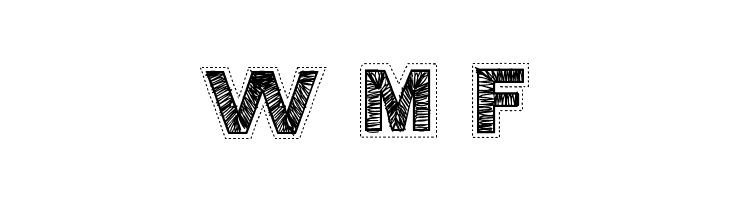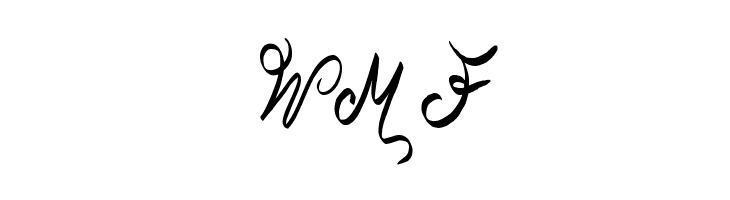
A decorative font with a needlework-inspired, stitched appearance.
An elegant, decorative font with intricate swirls and flourishes.
An intricate, tattoo-inspired decorative font with bold outlines and complex patterns.
A bold, textured font with a hand-drawn, artistic style.
A graceful script font with elegant, flowing calligraphic style.
An elegant, ornate script font with intricate flourishes and calligraphic style.